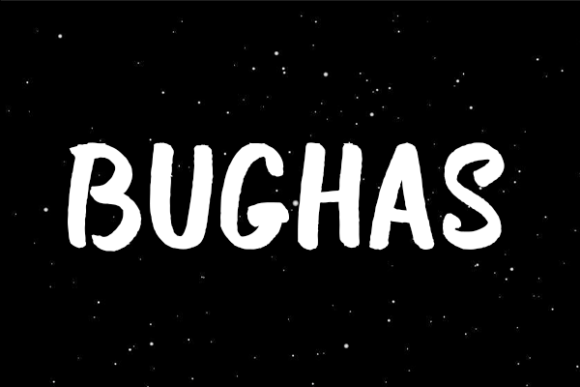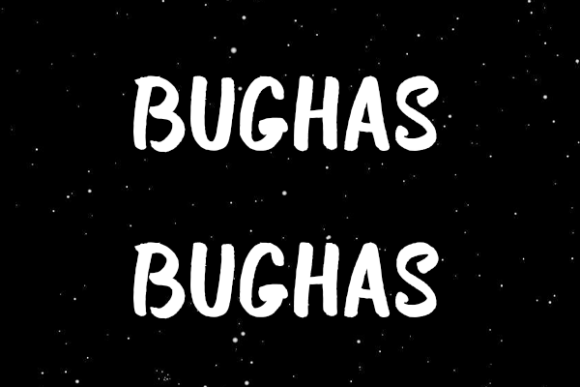
About Bughas Font
Bughas is a bold handwritten font that emerges as the optimal choice for crafting eye-catching logos, establishing a strong brand identity, and enhancing impactful quotes. With each letter possessing a unique and beautiful touch, Bughas is designed to breathe life into your designs and make them stand out with a distinctive flair.
The boldness of Bughas adds a powerful and attention-grabbing element to your designs, making it particularly well-suited for projects where a strong visual impact is desired. Whether you’re creating a memorable logo, defining your brand’s identity with bold and striking typography, or incorporating impactful quotes into your designs, Bughas is tailored to elevate your creative endeavors.
The individuality of each letter in Bughas ensures that your design is not only bold but also carries a touch of beauty and uniqueness. This combination contributes to the overall aesthetic appeal, allowing your projects to leave a lasting impression on your audience.
Imagine the impact of Bughas in your designs – from a bold and impactful logo that commands attention to cohesive branding materials that communicate strength and individuality. The font’s versatility extends to the realm of quotes, where the bold strokes enhance the visual appeal and underscore the significance of the message.
In conclusion, Bughas is more than just a font; it’s a design asset that adds a bold, unique, and beautiful touch to your creations. Elevate your logos, branding, and quotes with the striking and individualistic elements of Bughas. Let this font be the key to unlocking a world of creative possibilities, making your designs not only eye-catching but also powerful and memorable.